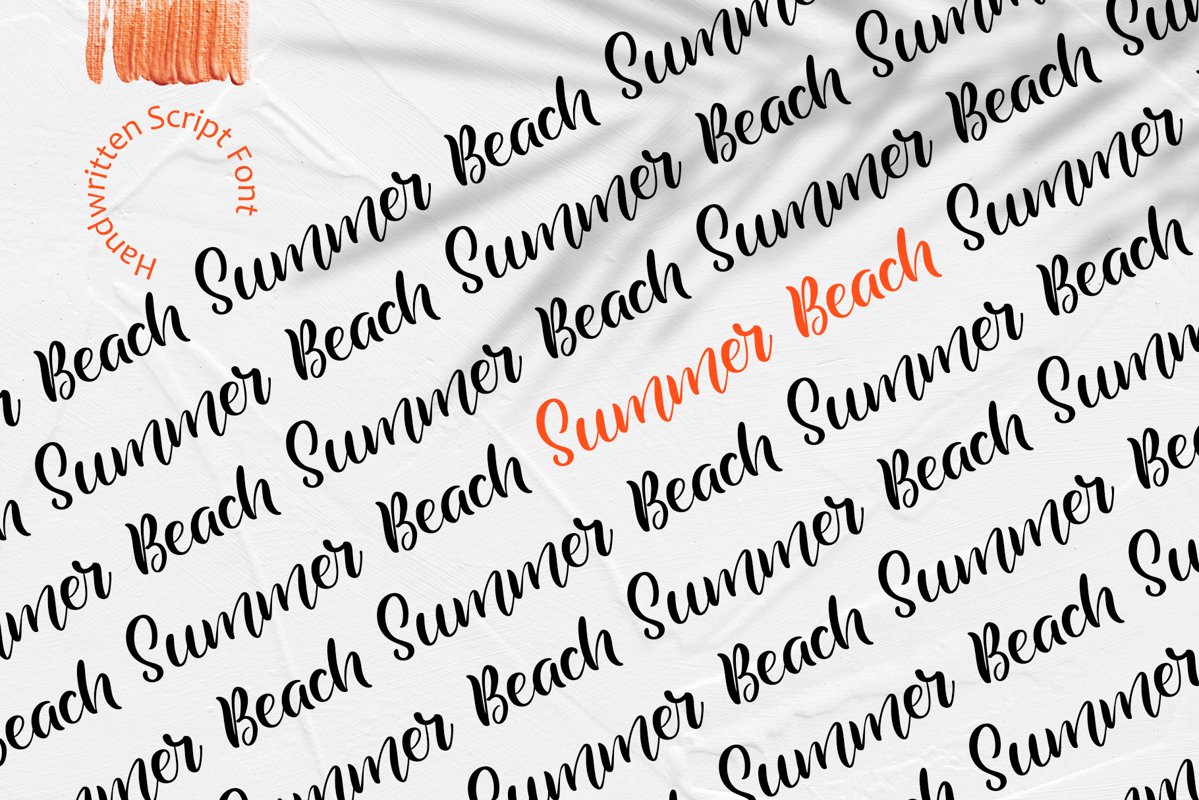
Summer Beach Handwriting Font
Handmade calligraphic Summer Beach Handwriting Font is display font with alternative flourish lowercases and ligatures.
This font have alternatives - & E f r z,
ligatures - er ir oo rr ss th tt ur